There’s something about seeing letters that look like they were written with a quill dipped in starlight or carved from ancient stone that just clicks with our imagination.
The thing is, these fonts aren’t just decorative—they’re conversation starters. When done right, a magic font can make the difference between someone scrolling past your work and stopping to actually engage with it. Whether it’s for a fantasy game, a mystical brand identity, or a children’s book, these typefaces add that extra layer of storytelling that regular fonts just can’t match.
You’ve probably seen magical fonts everywhere lately—from film posters to indie game logos to small business branding for yoga studios and crystal shops. The demand for these otherworldly designs has never been higher, and honestly, it makes sense. In a world that can feel pretty ordinary, we’re all craving a little magic in our lives.
Let’s explore what makes these fonts special:
- The most captivating magical fonts gaining popularity this year
- What visual elements give fonts their mystical character
- Practical ways to use magical typography without overwhelming your design
- Smart pairing strategies for different types of magical fonts
- Real-world applications where these fonts truly shine
If you’re ready to add some enchantment to your design toolkit, let’s dive into the world of magical typography and see what we can create together.
The Most Enchanting Magic Fonts of 2026
Let’s dive into my curated collection of the most captivating magical fonts available right now. Each one brings its own unique charm and mystical qualities to the table:
Magical Script
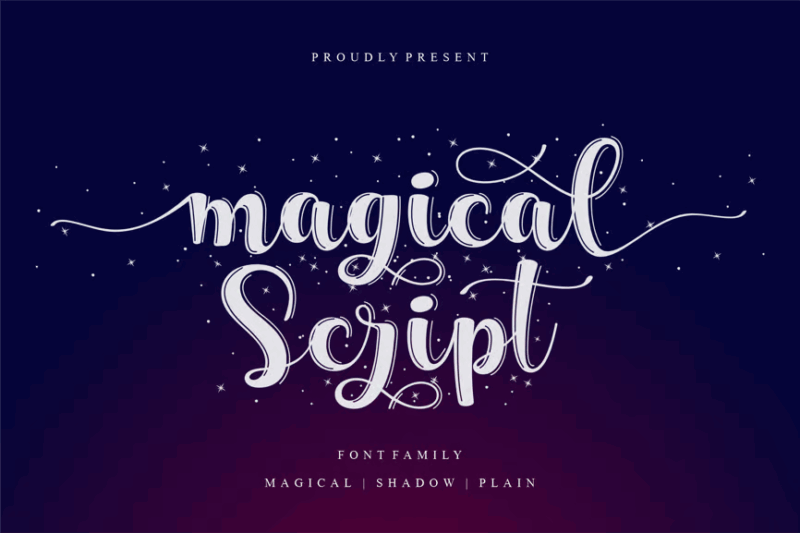
Magical Script is a playful and decorative handwritten font featuring star-like embellishments. Its whimsical nature makes it ideal for children’s books, party invitations, or any design requiring a touch of fun and magic.
Magic Sparkle
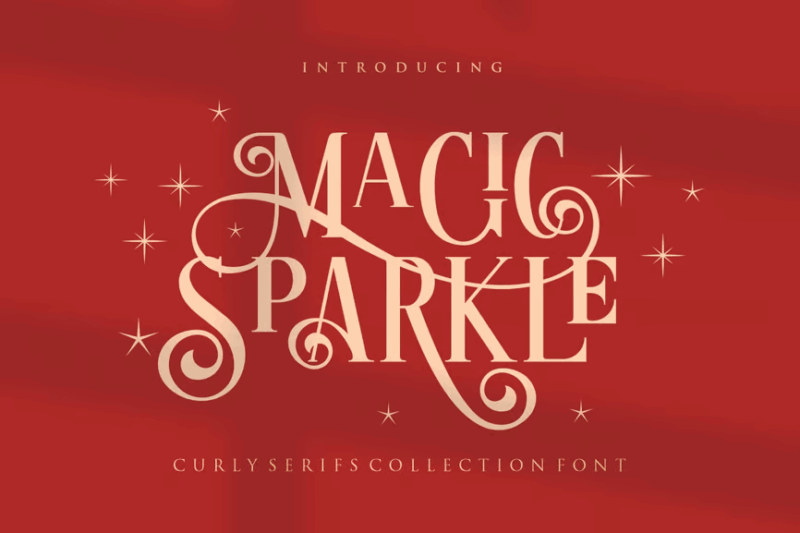
Magic Sparkle is an elegant serif font featuring beautiful swash characters. Its refined and graceful appearance adds a touch of sophistication to designs, making it ideal for luxury branding, wedding stationery, or high-end product packaging.
Magic Prince
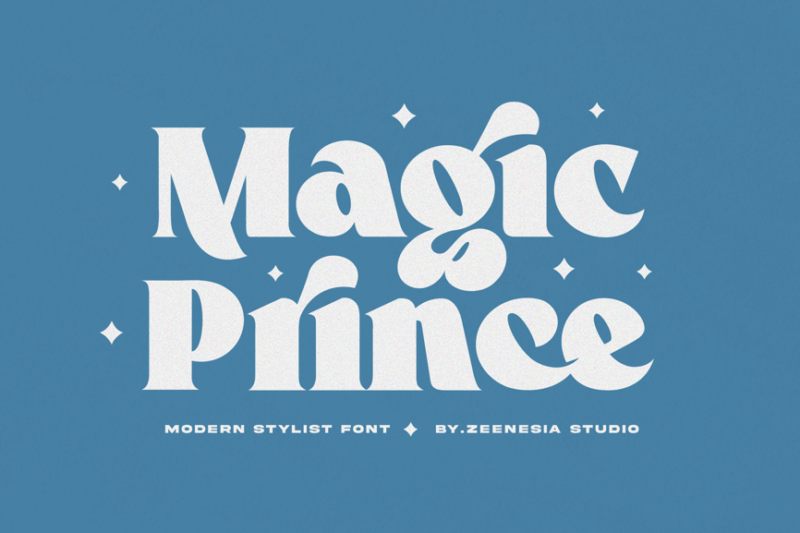
Magic Prince is a sophisticated serif font that combines elegance with a touch of whimsy. Its bold variant adds emphasis, making it suitable for headlines and titles in magical or fantasy-themed designs.
Illumina – Esoteric Tarot Display Font
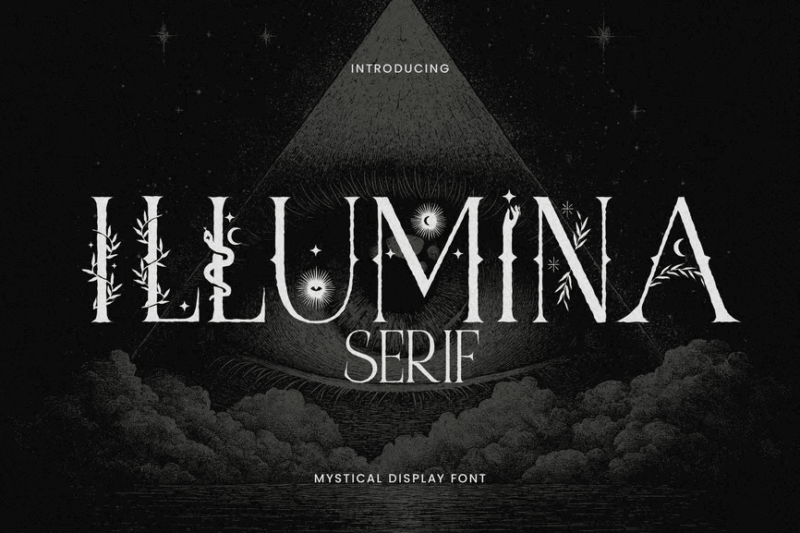
Illumina is a mystical display font designed for esoteric and occult-themed projects. Its intricate letterforms and symbolic elements make it ideal for tarot card designs, Wiccan literature, or any project related to spirituality and magic. If you need scarier fonts, head over to the horror fonts list.
Black Magic
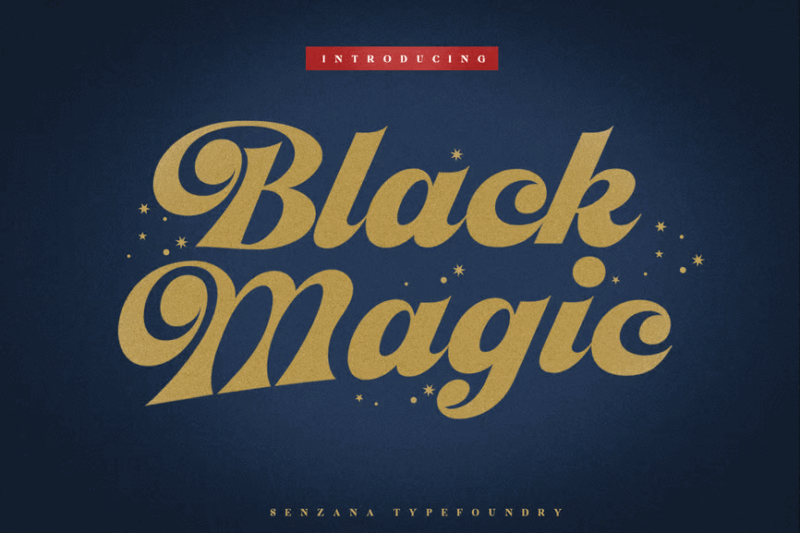
Black Magic is a captivating script font that exudes mystery and intrigue. Its fluid, handwritten style is perfect for creating an enchanting atmosphere in designs related to witchcraft, Halloween, or mystical themes.
Magic Retro
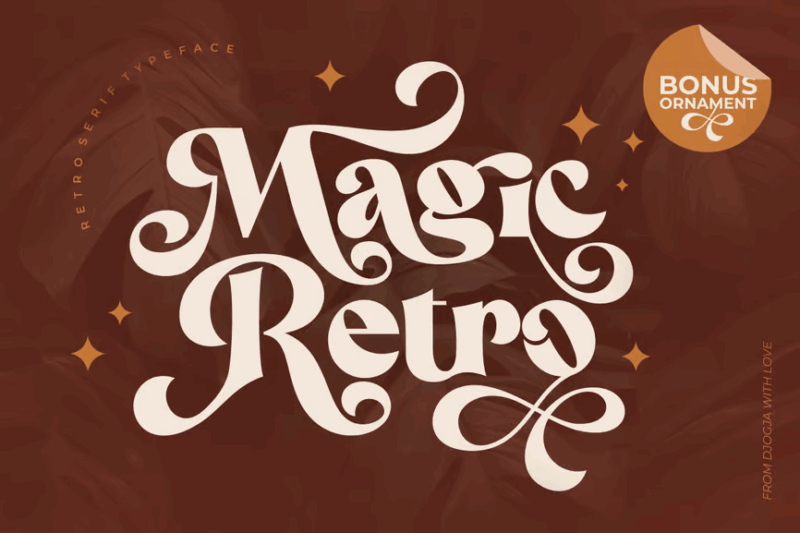
Magic Retro is a versatile font family that combines serif, decorative, and sans-serif styles with a nostalgic twist. Its chunky letterforms evoke a vintage feel, perfect for creating eye-catching retro-inspired designs.
Wisp Typeface
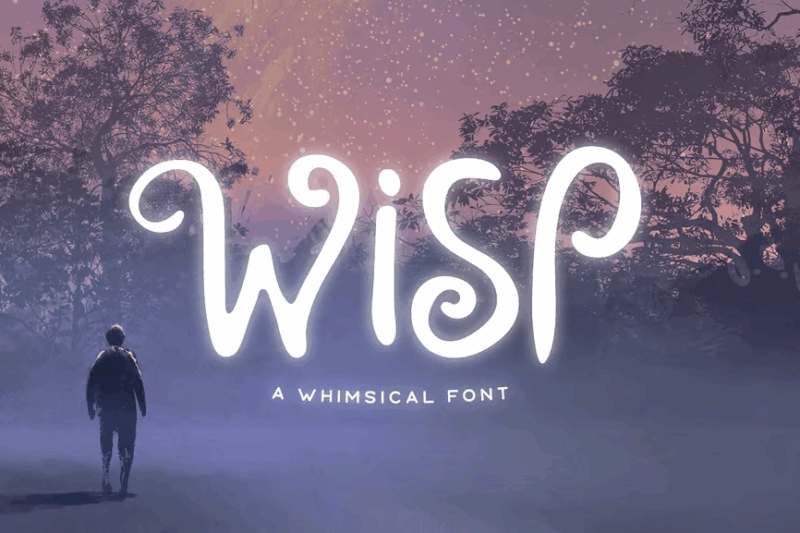
Wisp Typeface is a fun font family that includes decorative, symbol, and script styles. Its playful and magical design makes it ideal for creating enchanting logos, children’s book covers, or any project that requires a touch of whimsy and wonder.
Magic Christmas
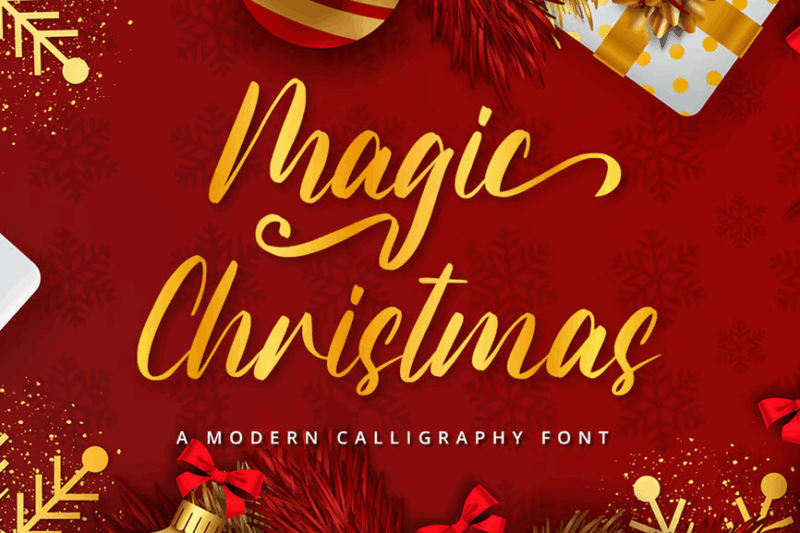
Magic Christmas is a golden font and festive script font that brings holiday cheer to any design. Its elegant curves and flourishes make it suitable for both Christmas-themed projects and romantic wedding stationery.
Magic Curls
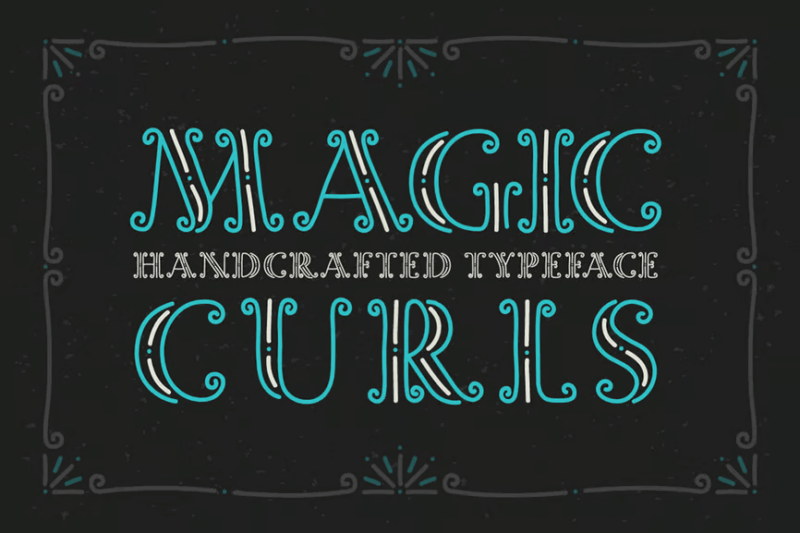
Magic Curls is a whimsical decorative font with intricate, fairy-tale-inspired letterforms. Its delicate curls and swirls create a sense of enchantment, making it perfect for children’s books or fantasy-themed designs.
Magic Dreams
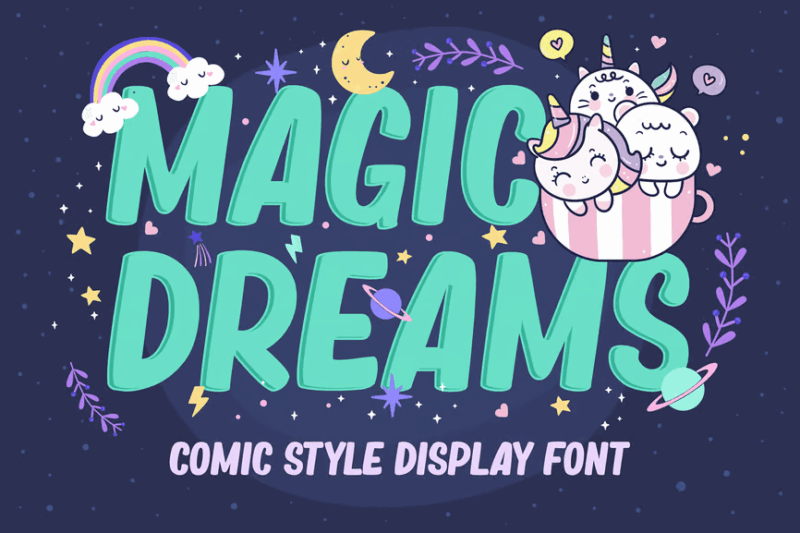
Magic Dreams is a playful display font with a comic-like appearance. Its whimsical letterforms evoke a sense of imagination and wonder, ideal for children’s products, cartoon-inspired designs, or fun branding projects.
Magic Story Font
Magic Story Font is a trendy serif typeface with a focus on food-related designs. Its modern yet classic appearance makes it suitable for restaurant menus, cookbook layouts, or any culinary-themed projects.
So as you embark on your next design journey into magical realms, remember that typography is perhaps your most powerful enchantment of all. Choose wisely, pair thoughtfully, and watch as the right magical font transforms your design from mundane to extraordinary.